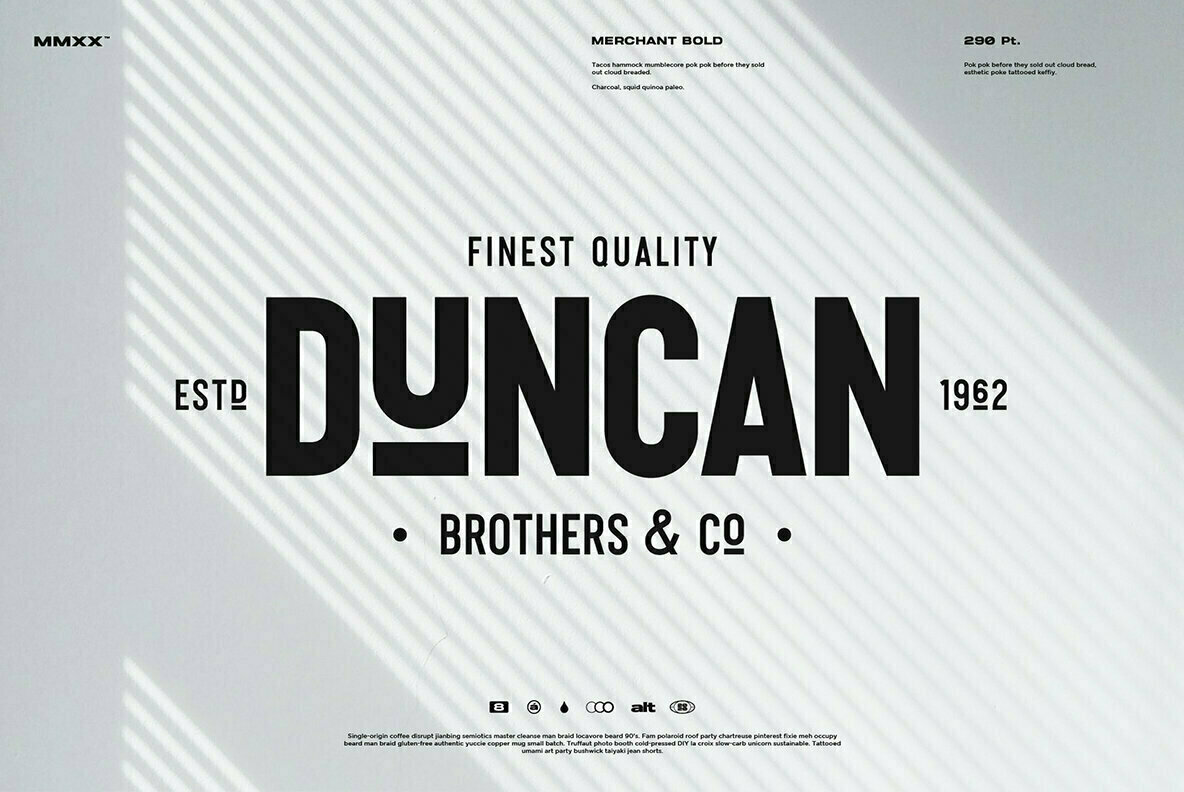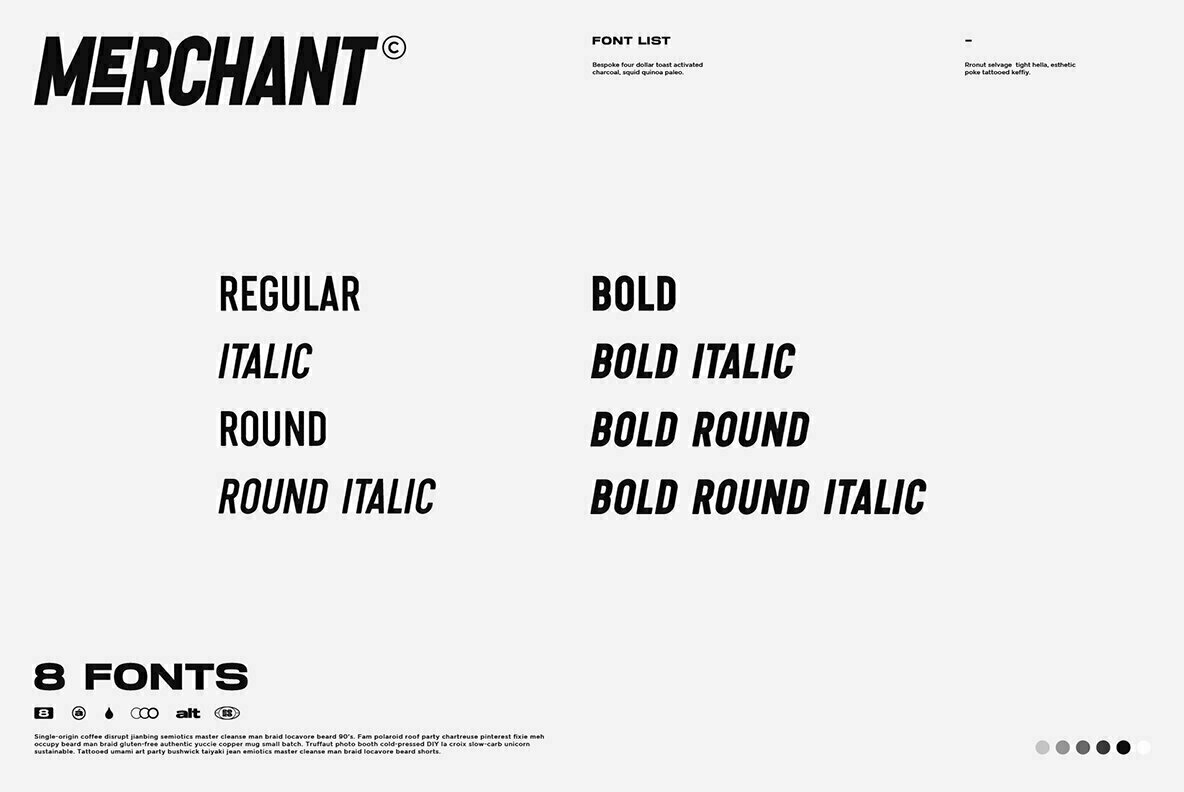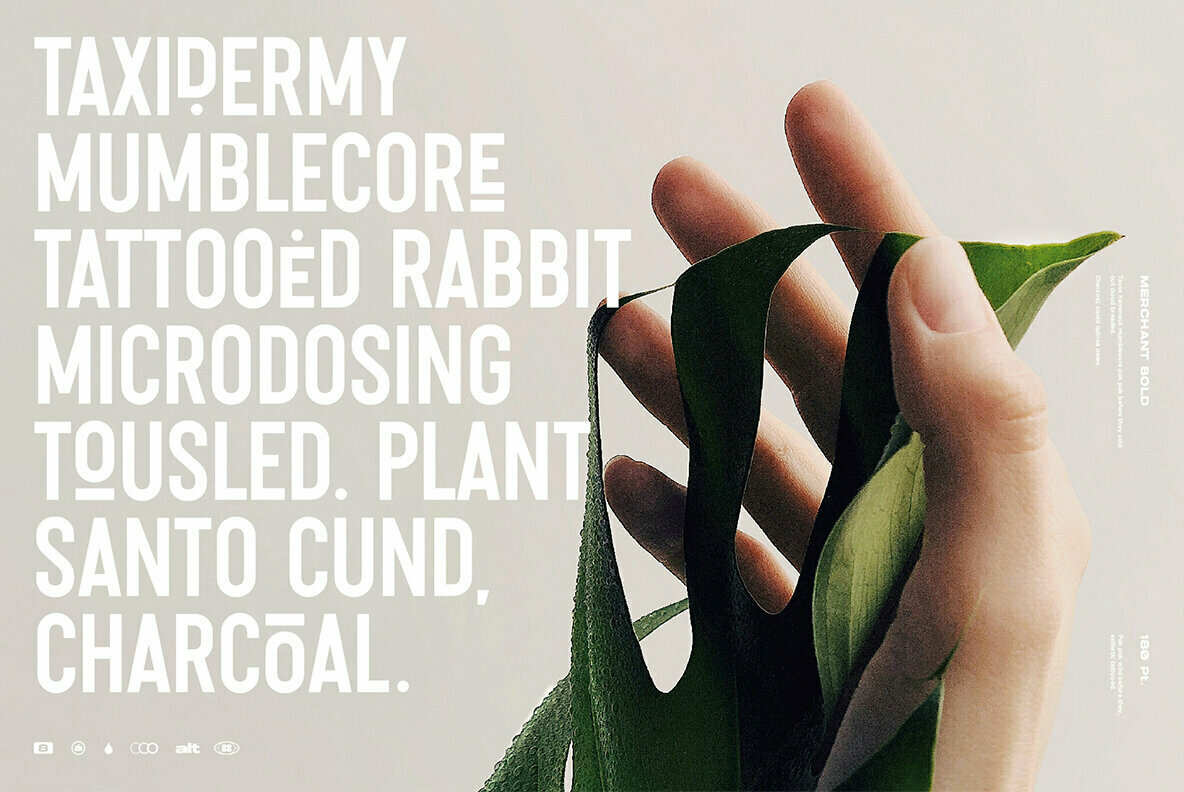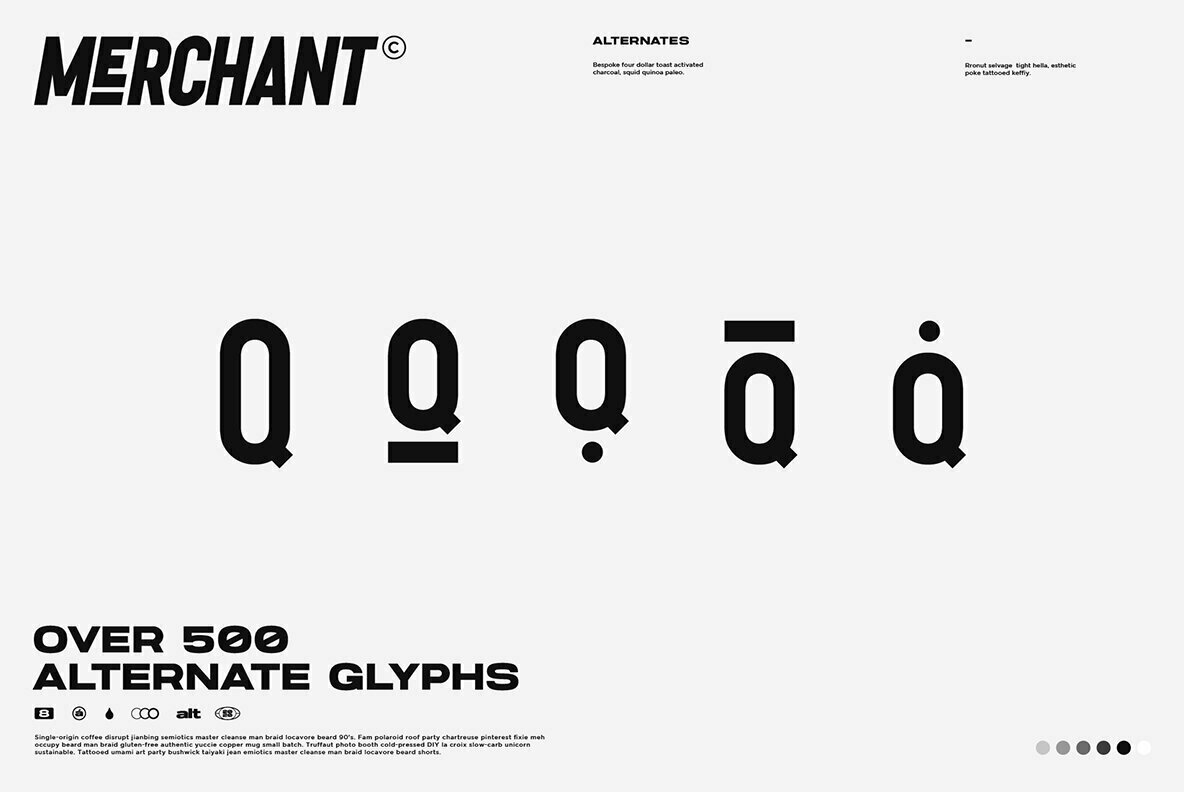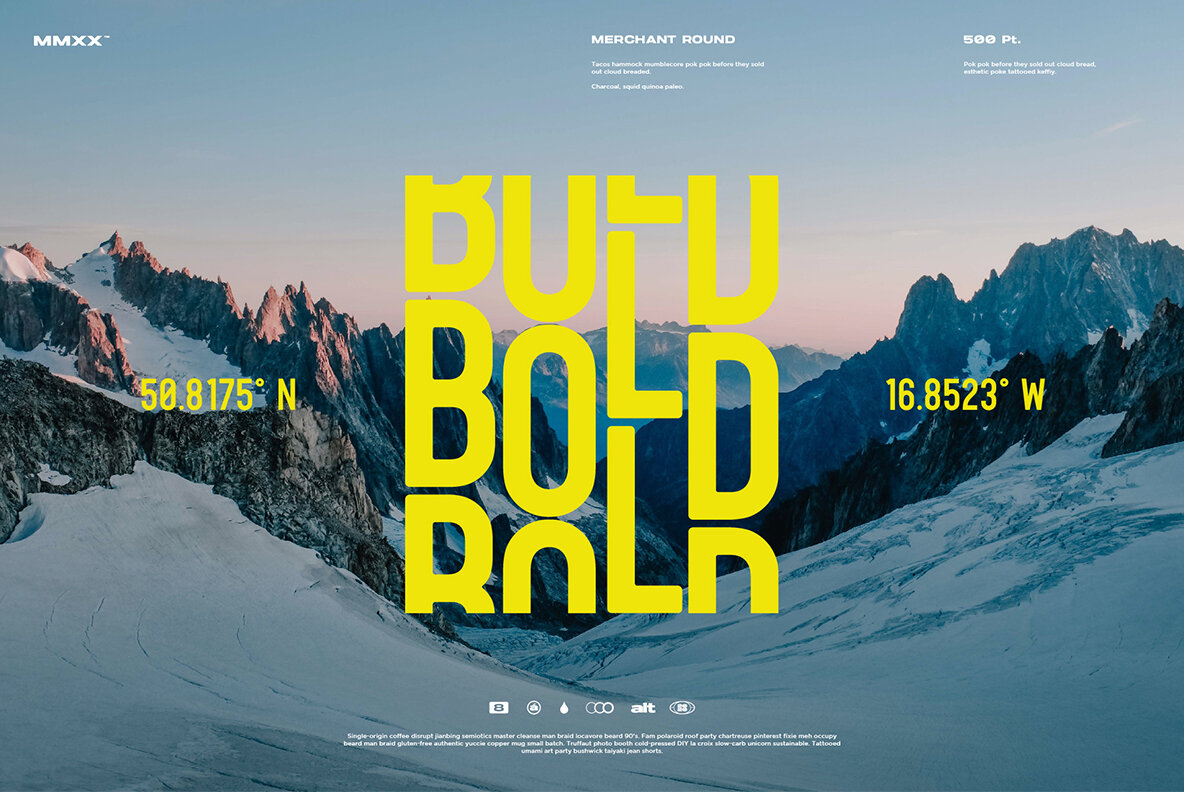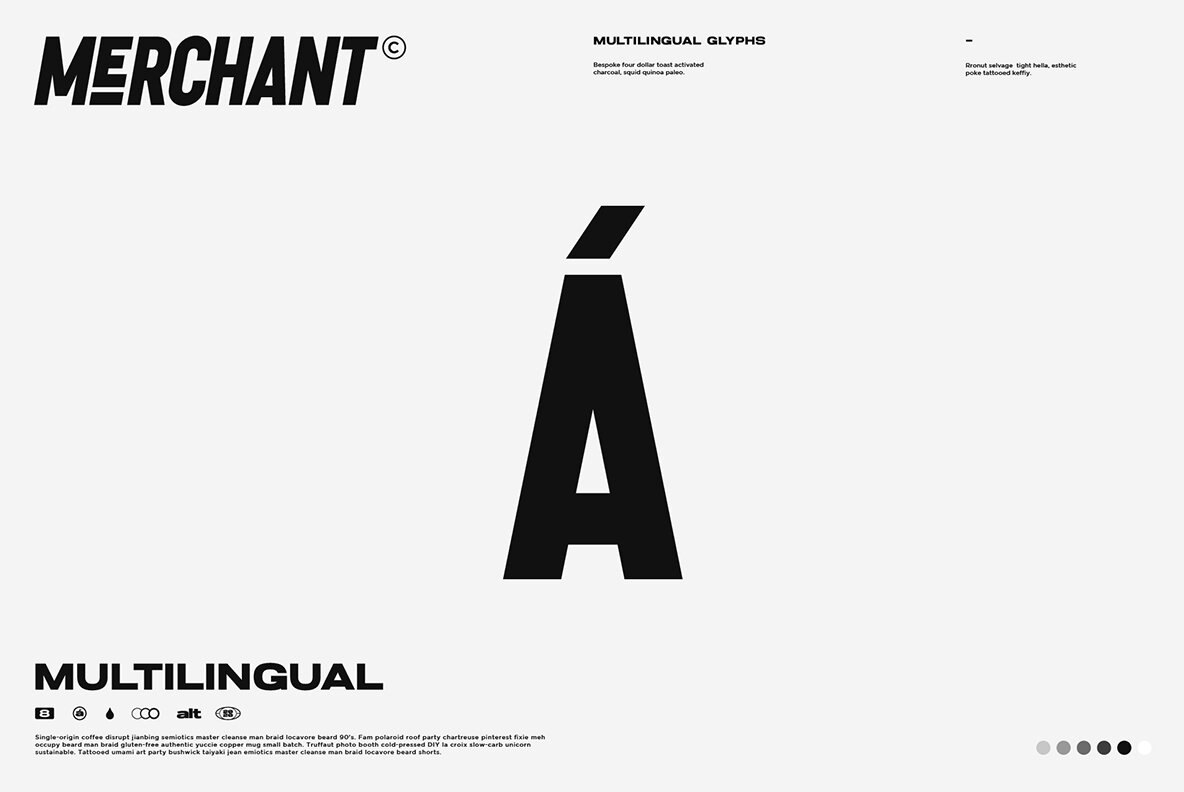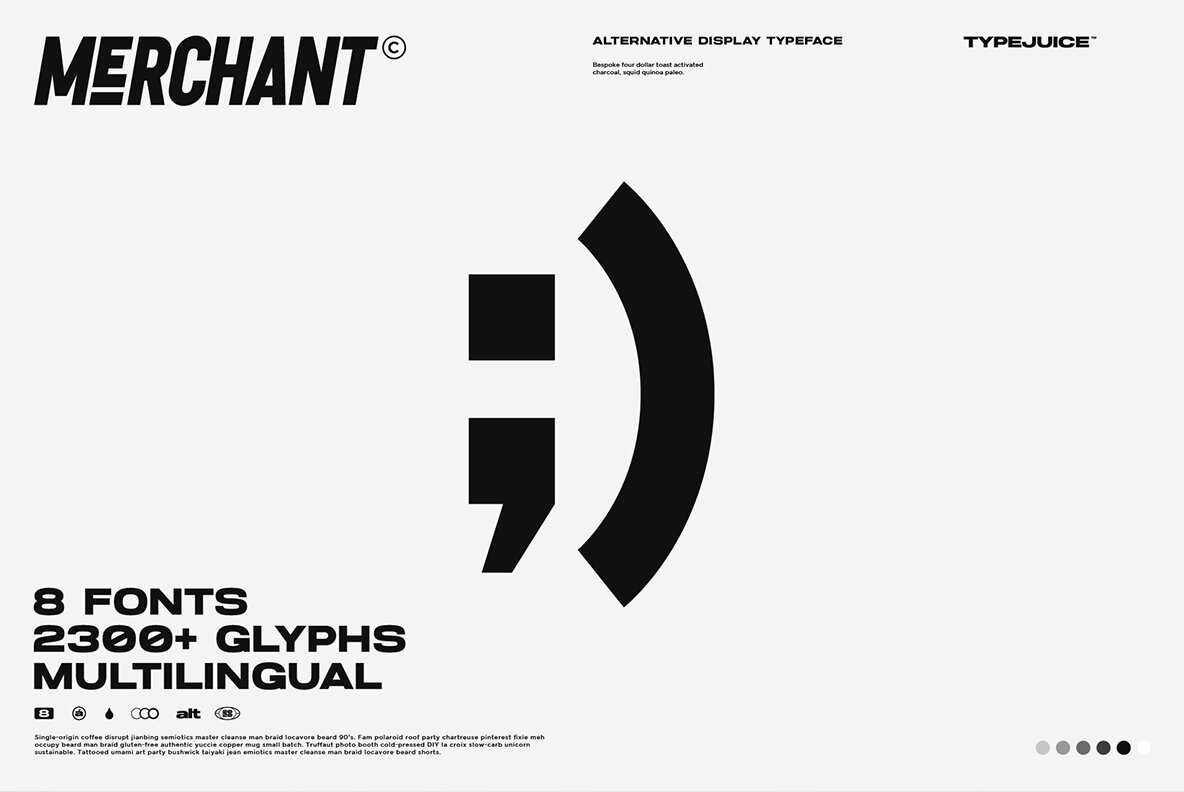
Merchant Font
Merchant is a condensed sans serif display typeface made up of 8 fonts in a variety of styles and weights. A versatile typeface that includes rounded versions of each style for a softer option. Merchant is a great typeface for titles, signs, logos and much more.